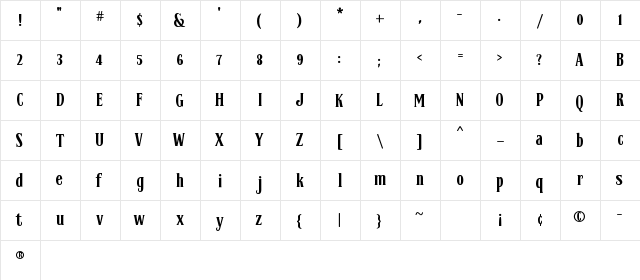
Jasper Daniels Regular
Design Context for Jasper Daniels Typeface
Jasper Daniels is a composed and adaptable typeface that performs quietly and consistently across a wide range of design contexts.